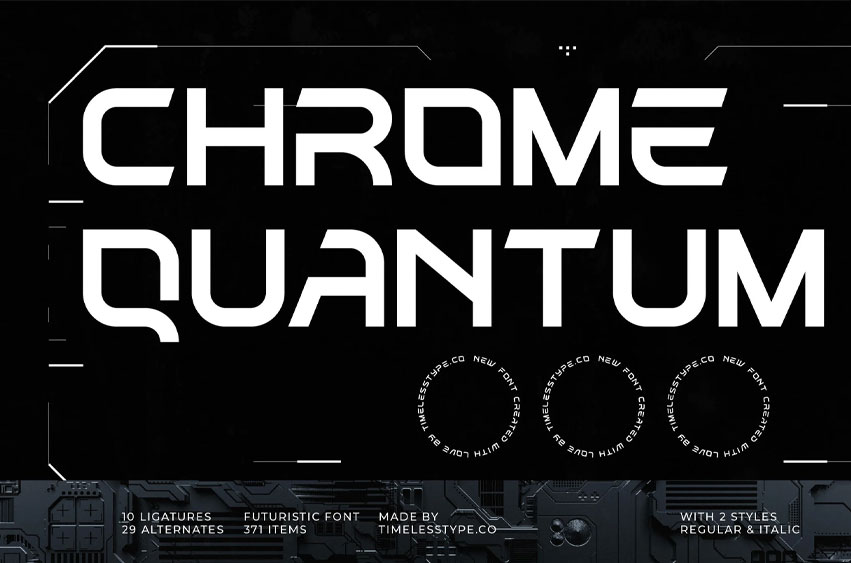
Chrome Quantum Font
Chrome Quantum Font is a cutting-edge futuristic display font crafted with precision, angular flow, and cyber-tech influence. Designed for sci-fi titles, game UI, esports branding, tech startups, and high-energy digital visuals, this font delivers a sharp, mechanical aesthetic that instantly feels next-gen. With 10 ligatures and 29 alternates, Chrome Quantum gives you full creative flexibility for crafting bold logotypes, HUD interfaces, circuit-style posters, and modern digital layouts. The Regular and Italic styles provide dynamic options for expressive, high-impact compositions.